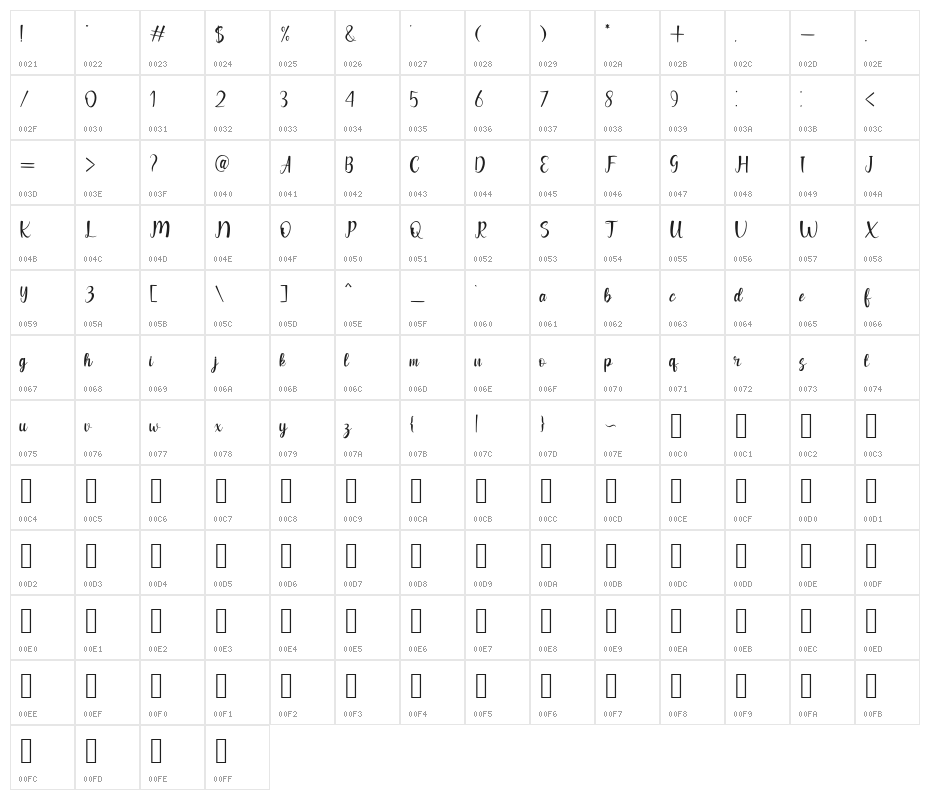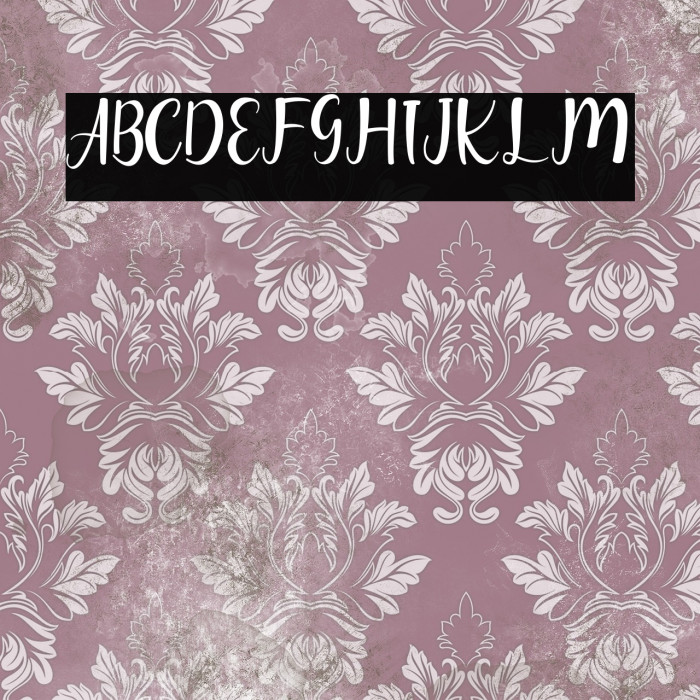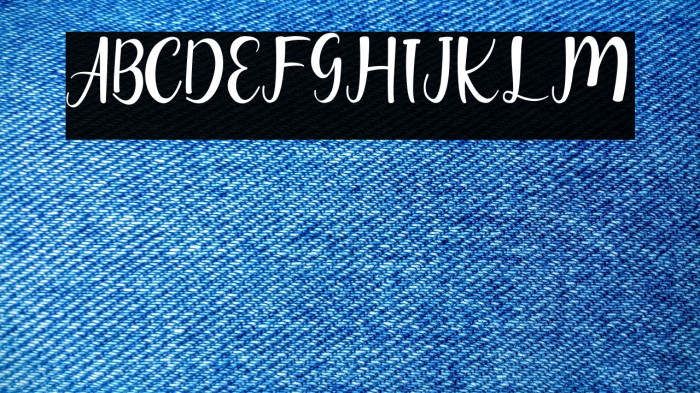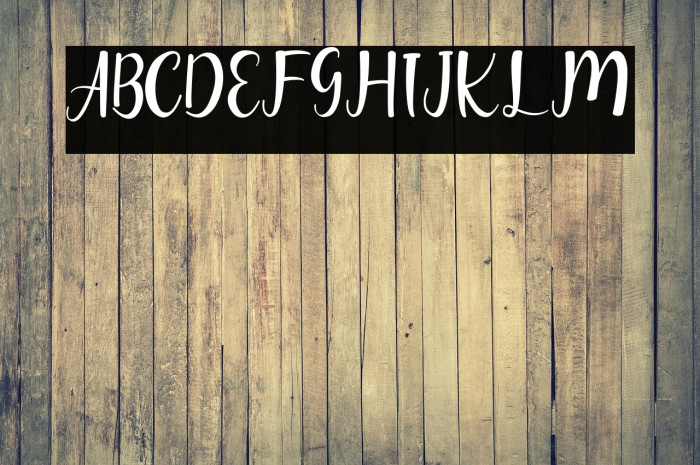
Readwish Font
Readwish Description
This font features a playful and elegant script style with a handwritten appearance. The uppercase letters are bold and slightly whimsical, with unique flourishes that add character. The lowercase letters maintain a consistent flow, enhancing the handwritten feel. Numbers are clear and legible, while special characters are creatively styled to match the overall aesthetic. The font's design is both modern and classic, making it versatile for various applications.
| Use Case | Logos, Invitations, Social Media |
| Proposed Projects | Ideal for wedding invitations, greeting cards, branding projects, and social media graphics. |